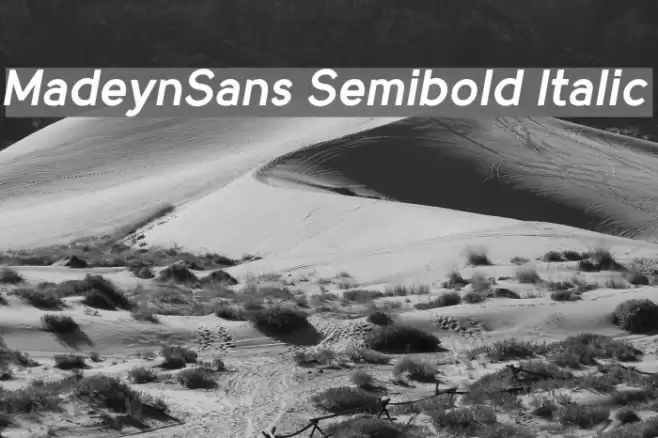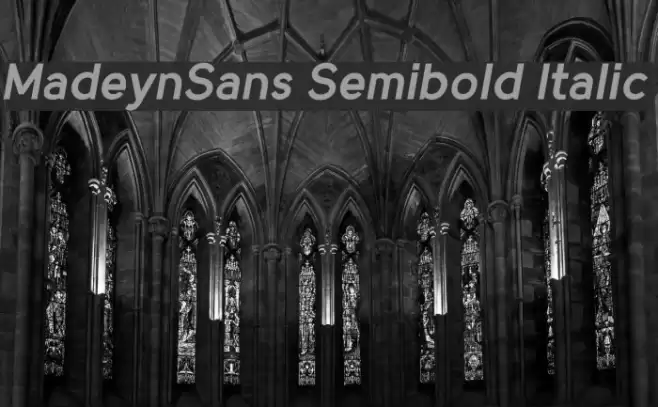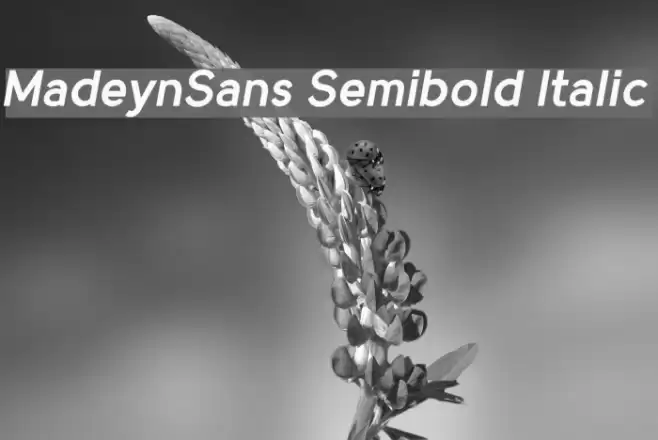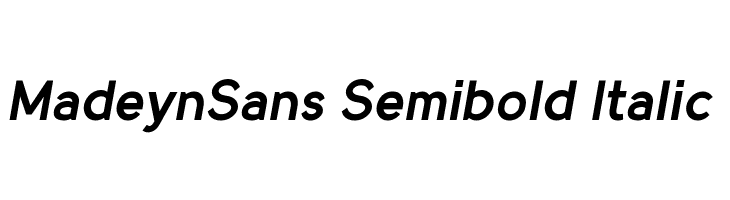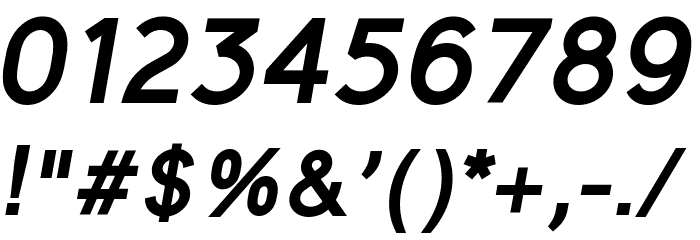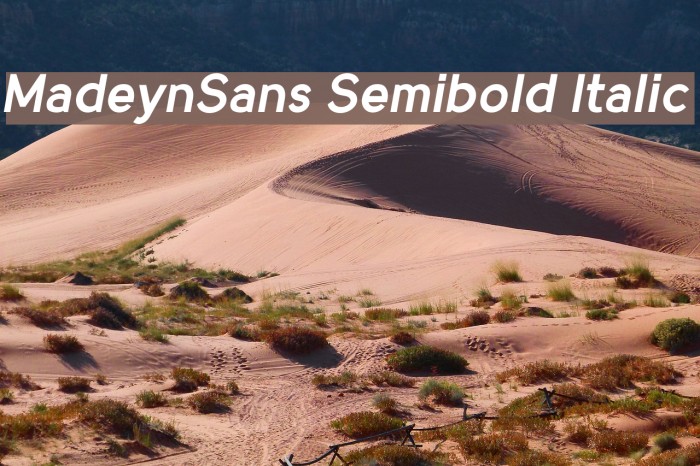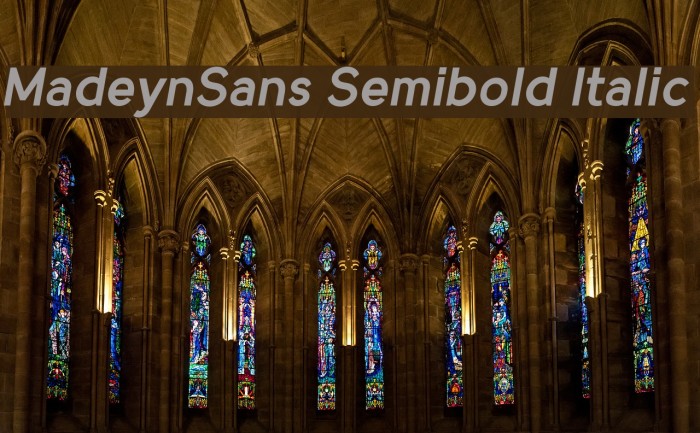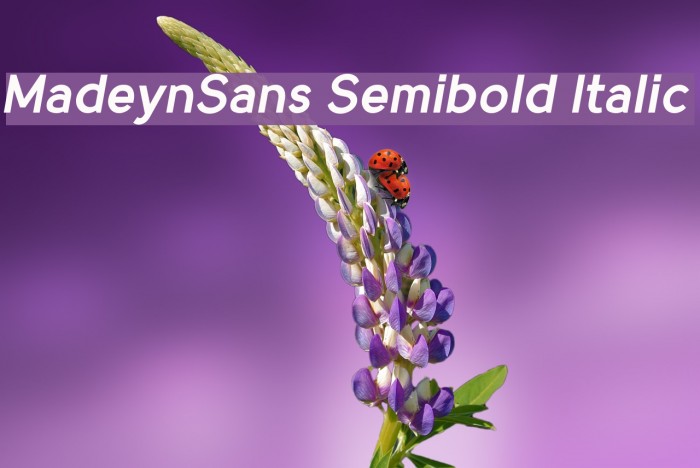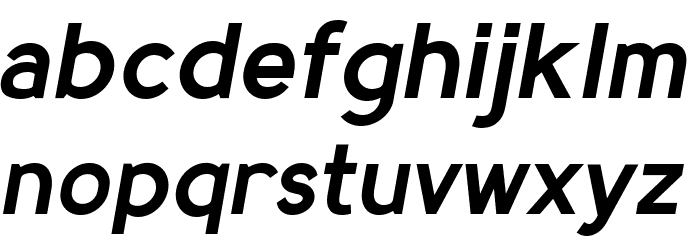
MadeynSans Semibold Italic Font
MadeynSans Semibold Italic Description
This font features a sleek, modern sans-serif style with a semi-bold weight and italic slant. The characters are clean and well-defined, offering a contemporary look that is both professional and approachable. The uppercase letters are slightly taller than average, giving a sense of authority, while the lowercase letters maintain a consistent flow. The numerals are clear and easy to read, making them suitable for various applications. Special characters are distinct and harmonize well with the rest of the font, ensuring versatility in design projects.
A modern sans-serif font with semi-bold weight and italic style from Uncategorized fonts.
- Proposed Projects: Ideal for branding, advertising, digital media, and editorial design.